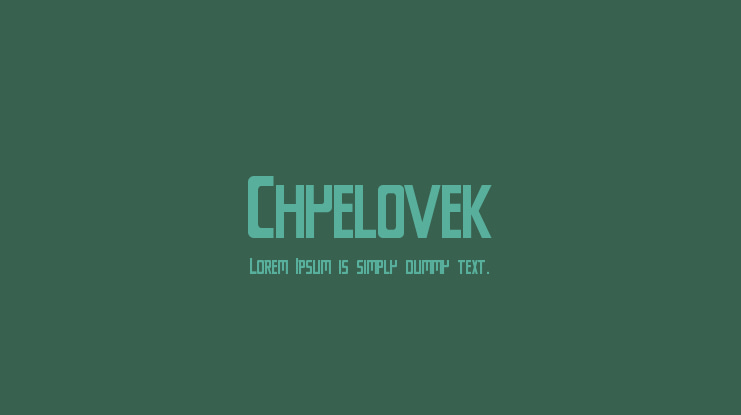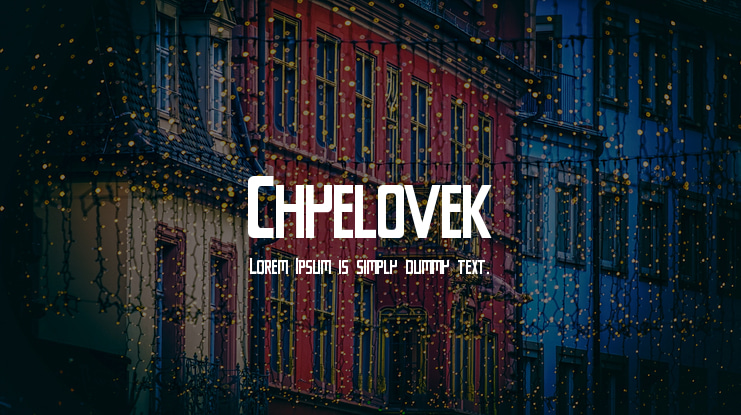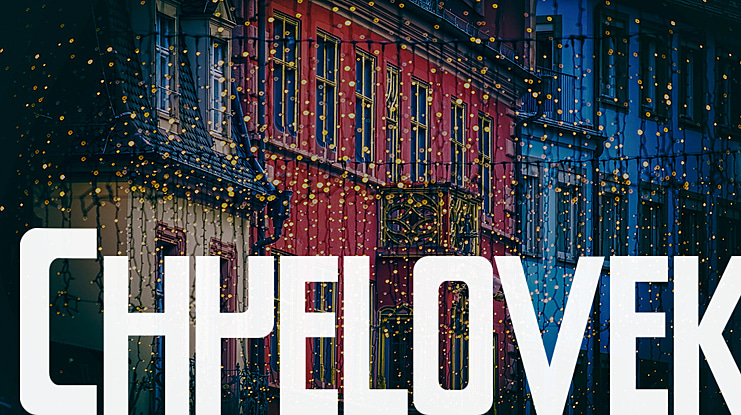
Chyelovek Font
This is a font based on the block-print style typeface commonly found on
eastern-bloc propaganda posters throughout the 1930's and 40's. It has been
adapted for the Roman alphabet (the original was predominantly Cyrillic).